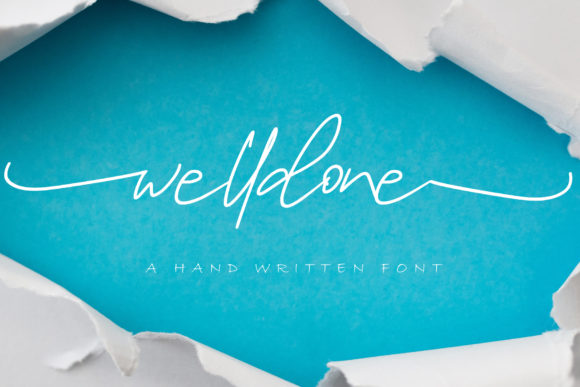
In a world clamoring for distinction, your signature should be a melody, a reflection of your unparalleled individuality. Picture an autograph that dances across the page like a symphony of elegance, leaving an indelible mark on every document, contract, and personal note. With Welldone, the best font for e-signature, your digital presence will radiate an aura of sophistication and charisma.
Step into a realm where your electronic signature captivates and commands attention. Welldone, a stunning script font, artfully weaves delicate strokes with a dash of boldness, creating an exquisite visual tapestry that speaks volumes about your discerning taste. This breathtaking font will transform your e-signature into an emblem of grace and professionalism, adding a touch of magic to every digital interaction.
With Welldone, you'll embark on a journey of boundless creativity, where your imagination takes center stage. Its light and airy nature makes it a perfect choice for adding a personal touch to your digital branding. Let Welldone's enchanting curves and flourishes elevate your e-signature, making it a true masterpiece.
Our commitment to excellence extends beyond aesthetics. Welldone is meticulously crafted with PUA encoding, ensuring seamless access to all of its glyphs and swashes. Unleash your creativity without limits, knowing that every nuance and detail of this magnificent font is at your fingertips.
Dare to embrace a new era of digital sophistication with Welldone. Its unique feel and stunning impact will transform your e-signature into a testament to your impeccable style and unmatched personality. Make a statement, leave a lasting impression, and stand out from the crowd with Welldone, the ultimate font for e-signature.